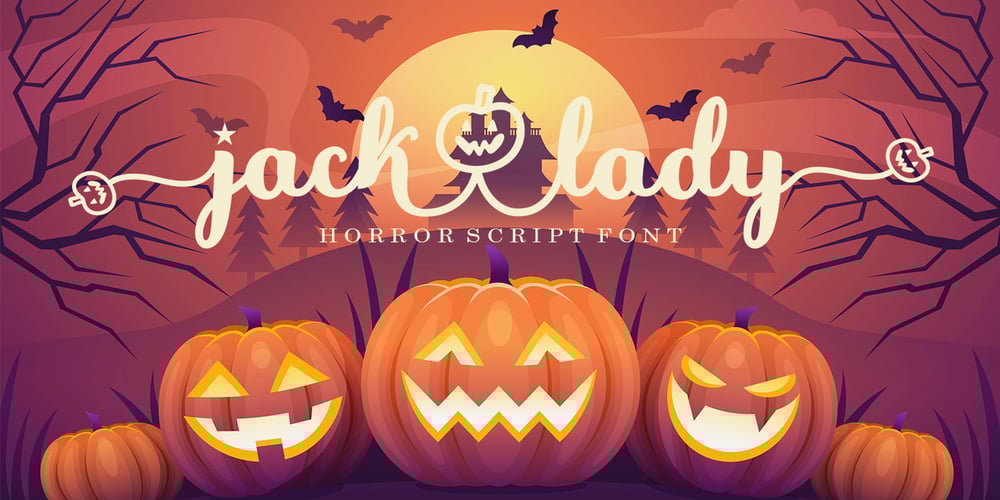
Jack Lady Script Font Family was designed by Mu Fazzal and published by Bosstypestudio. Jack Lady Script contains 1 styles and family package options. Jack Lady Script is a cool and scary decorative font. Use it for each of your October designs and notice how they instantly come to life. Jack Lady Script is PUA encoded which means you can access all of the glyphs and swashes with ease!